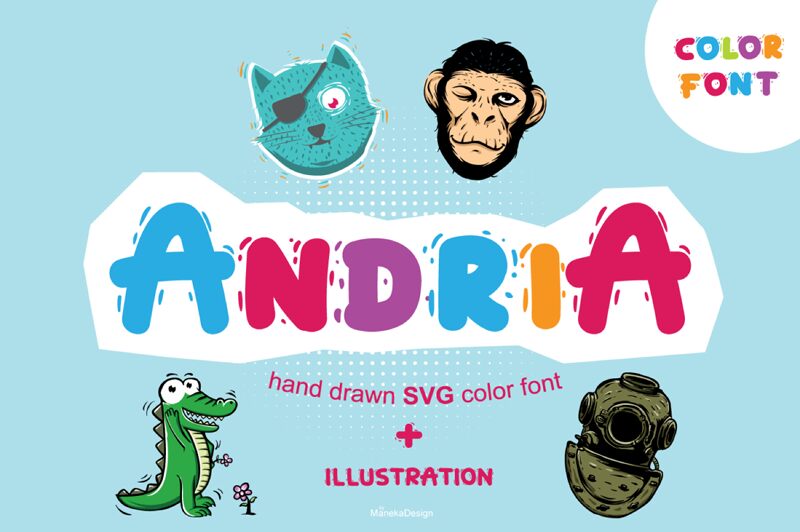
Andria Regular
Andria, the bold and playful display font created by Dina Chandra is perfect for adding a touch of whimsy and fun to your projects. With its comic style, Andria is ideal for designs that require a lively and light-hearted feel, such as children's books, party invitations or social media graphics. The chunky lettering makes a statement on posters or signage while still remaining easy to read. Whether you're creating an eye-catching logo or designing an album cover, Andria's bold weight adds impact and character to any project. Let Andria bring joy and creativity into your designs!